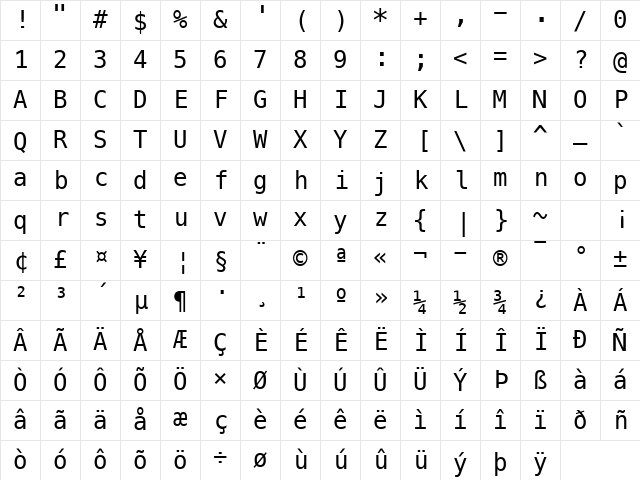
MesloLGMDZ NF Regular
Foundry: Bitstream
Designer: Jim Lyles
Design Context for MesloLGMDZ NF
MesloLGMDZ NF is a composed and adaptable typeface that performs quietly and consistently across a wide range of design contexts.